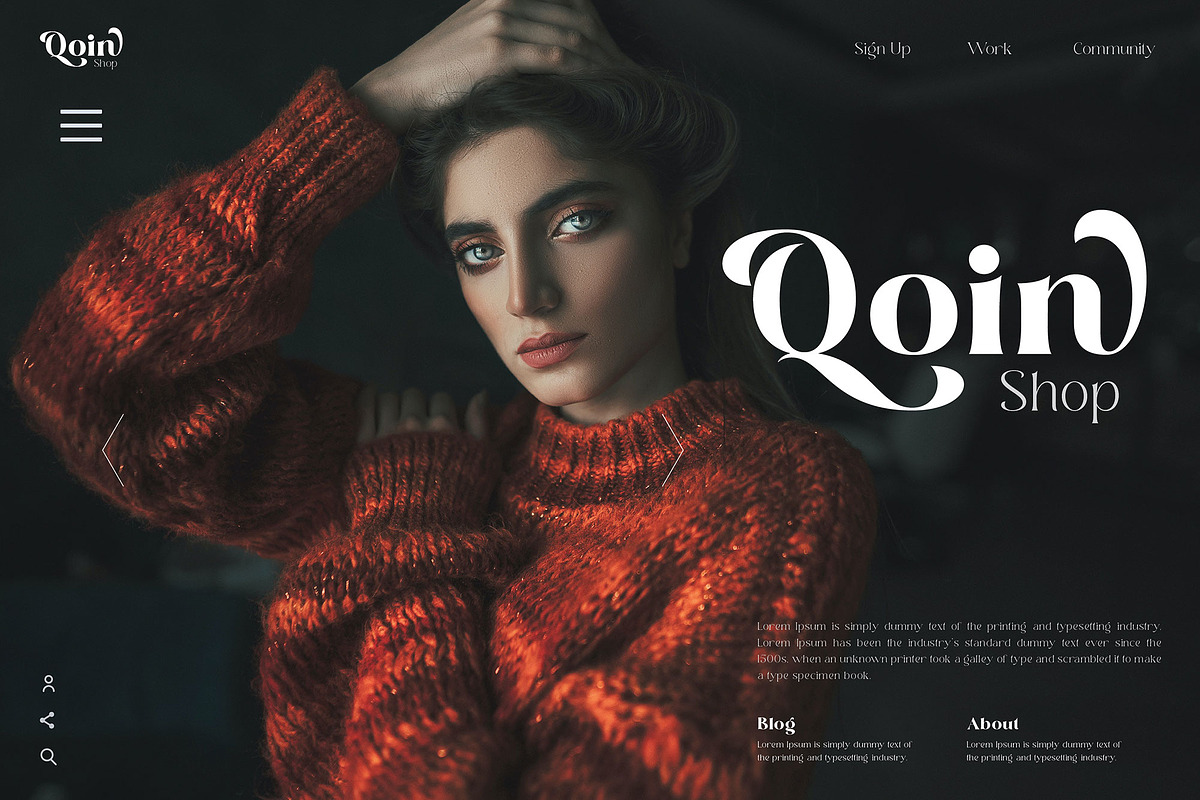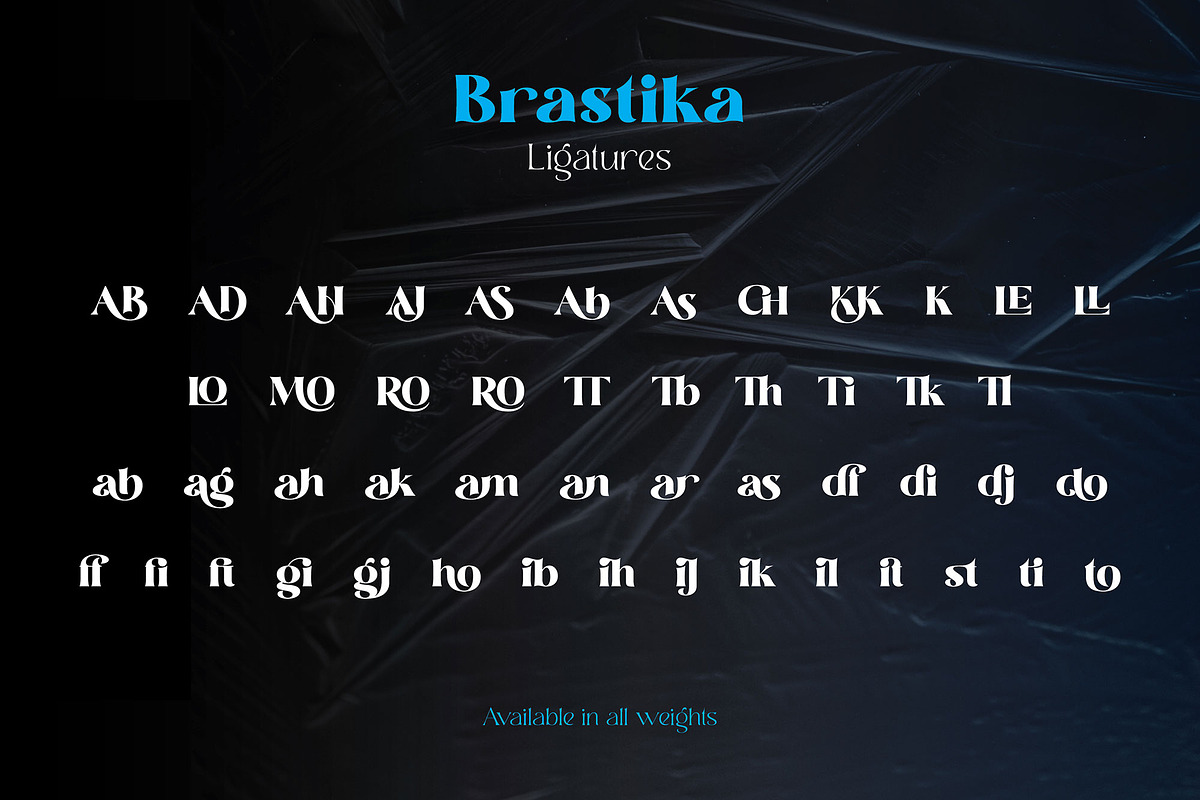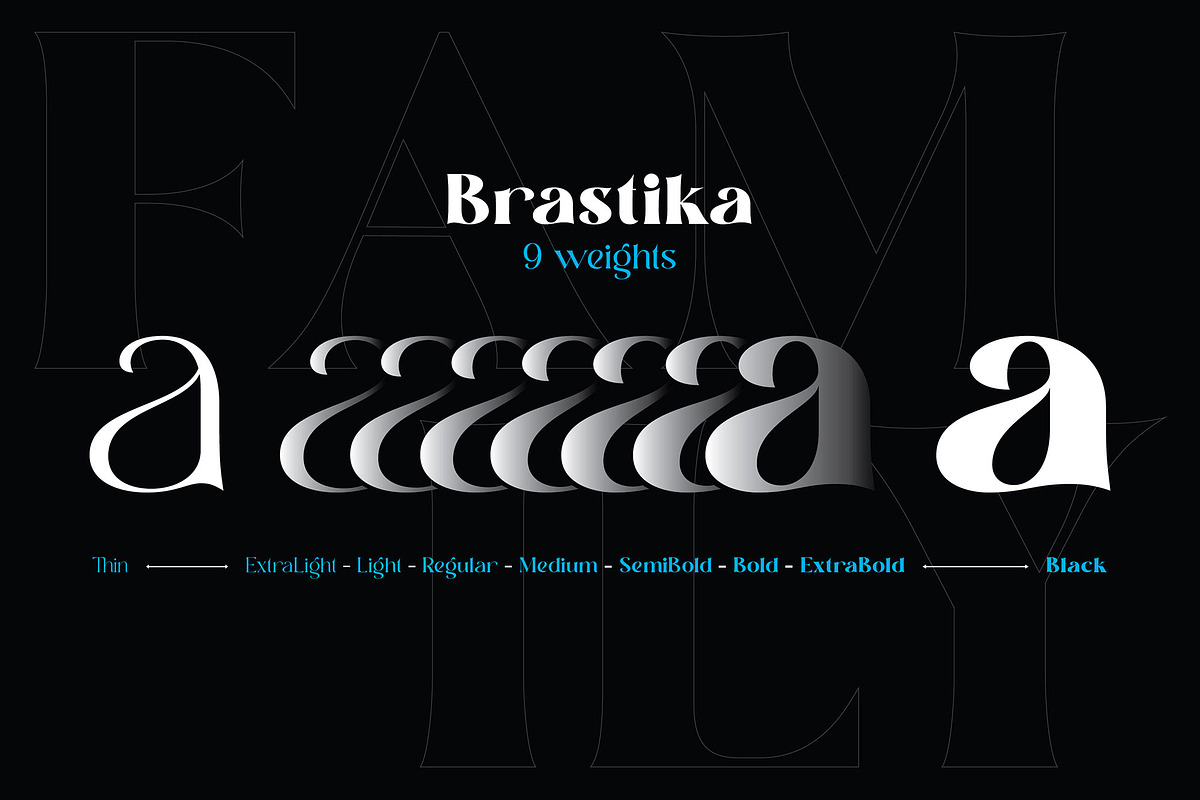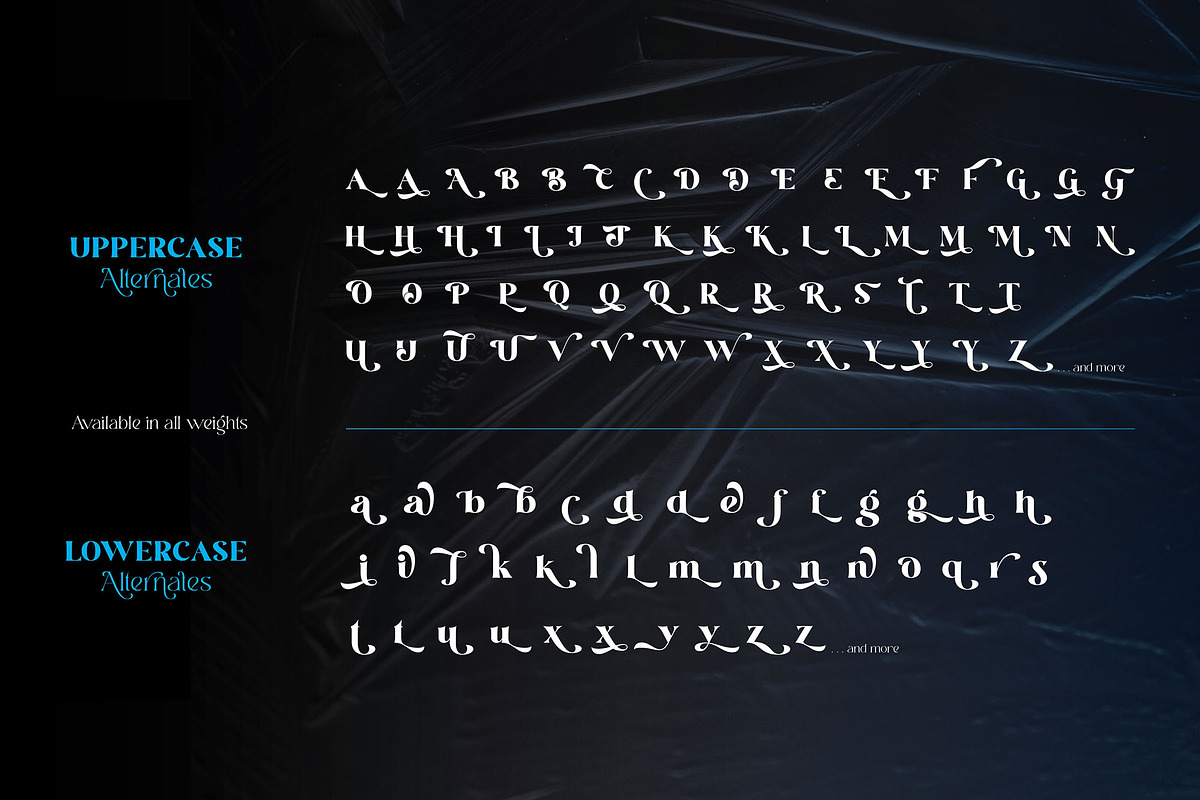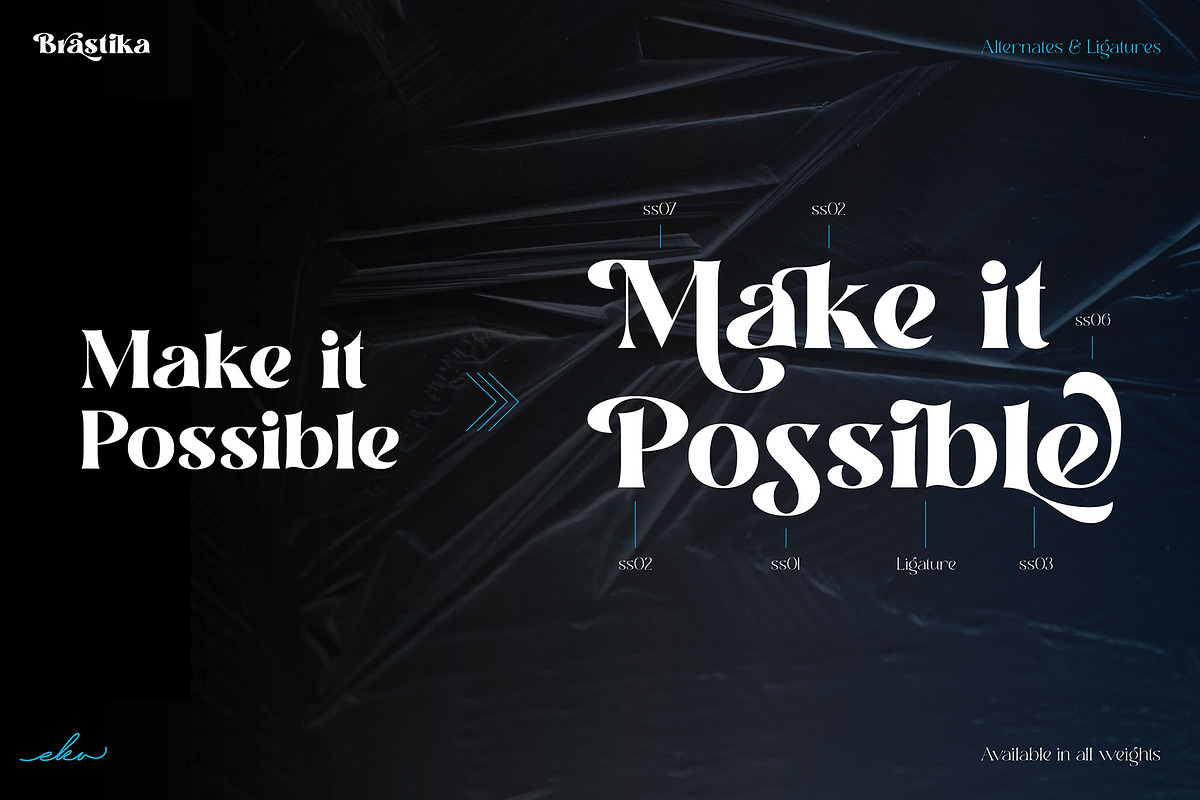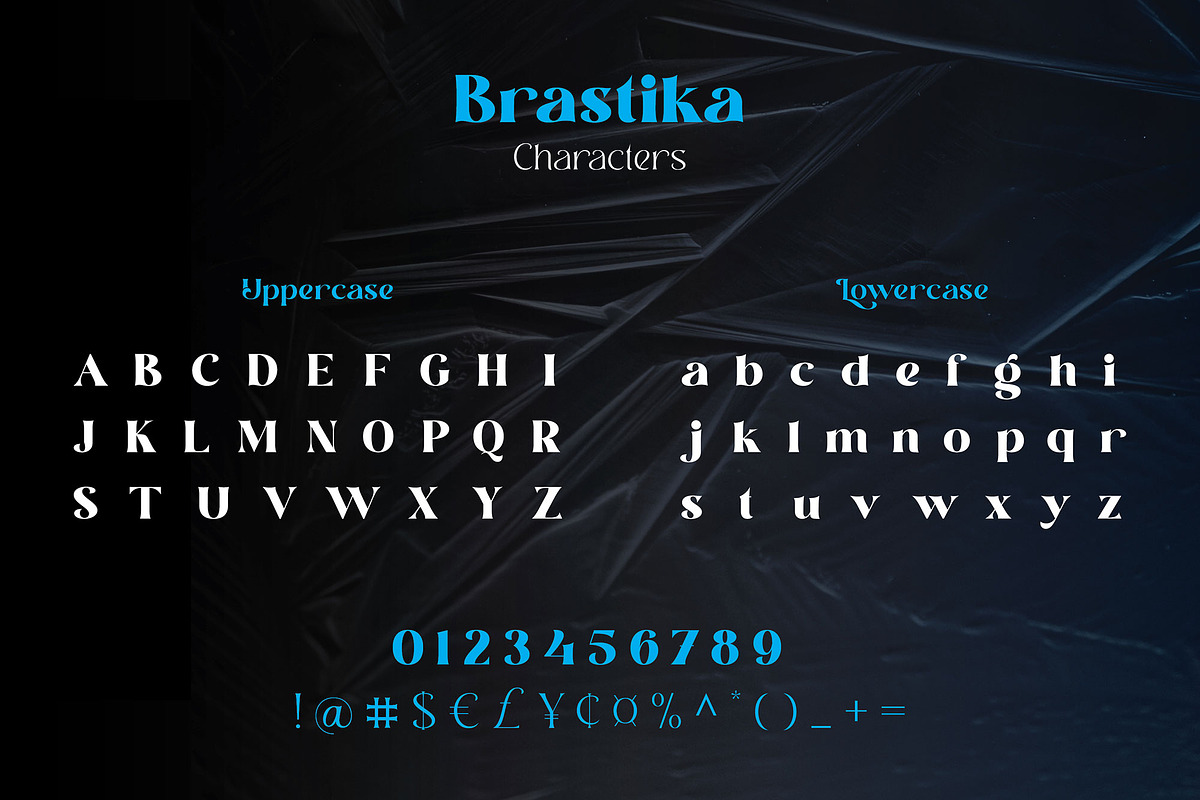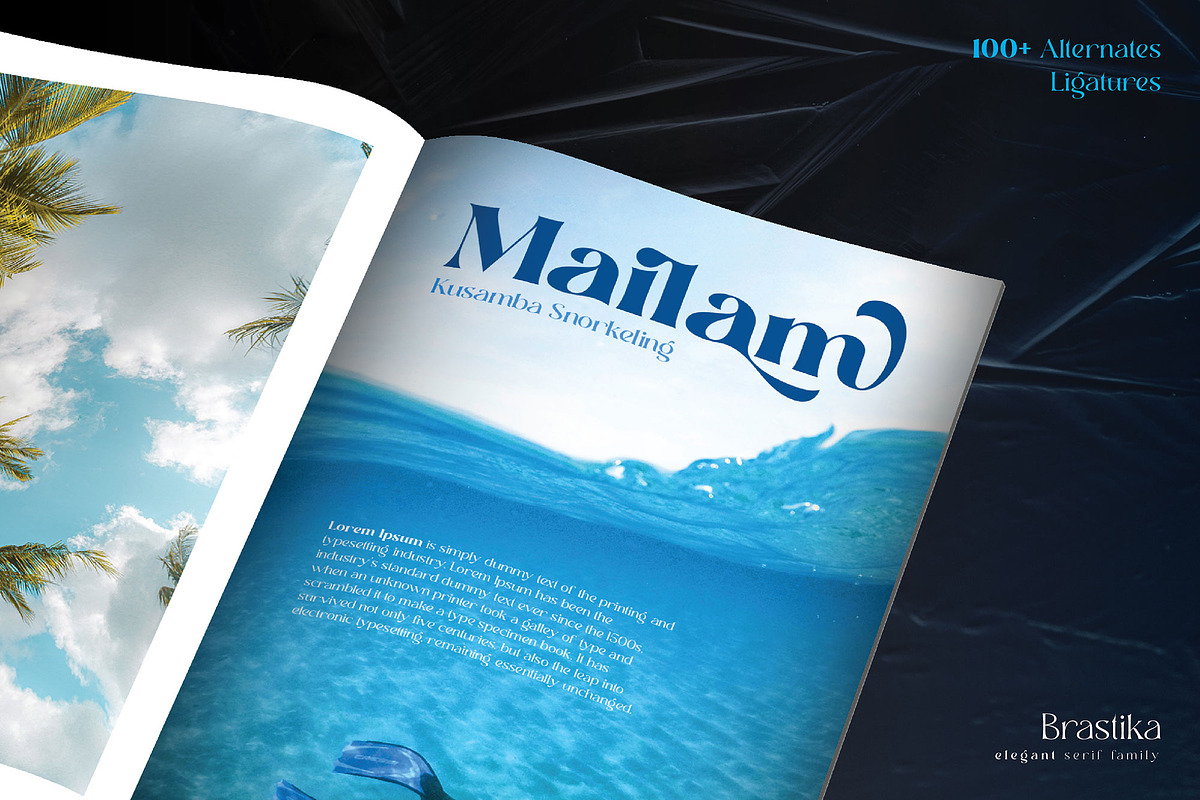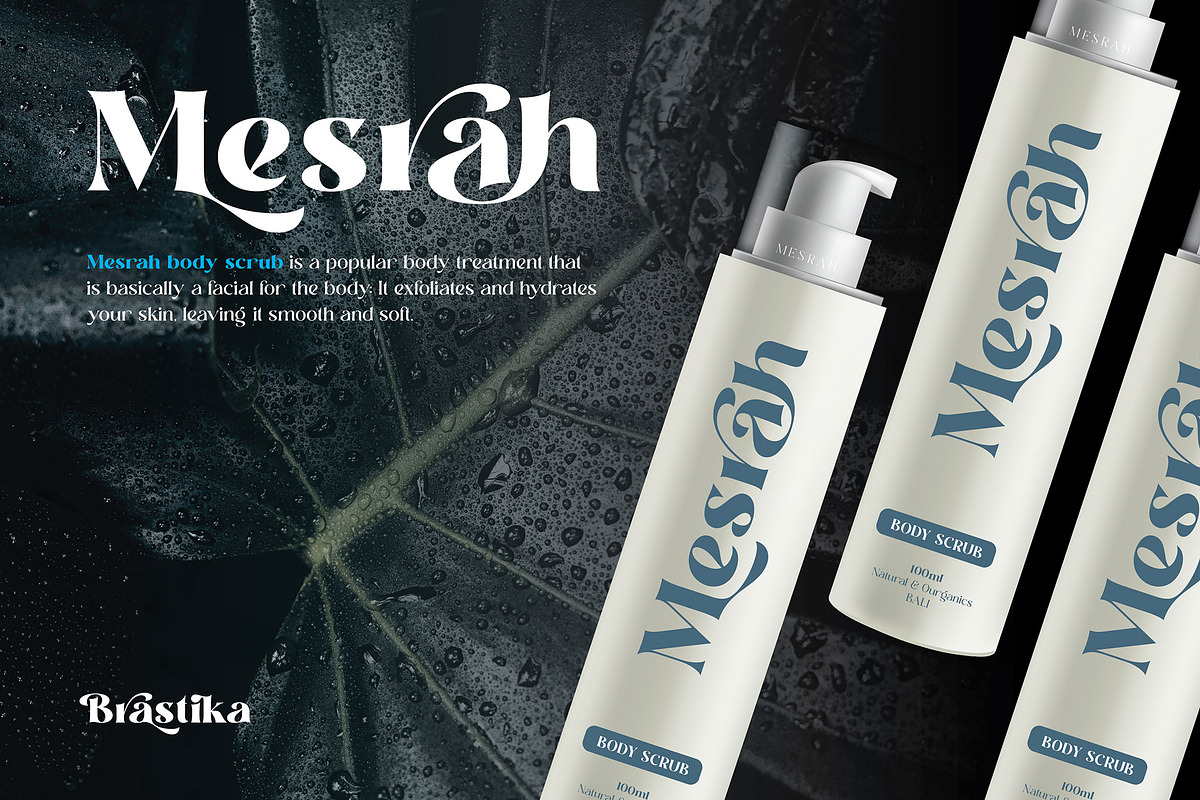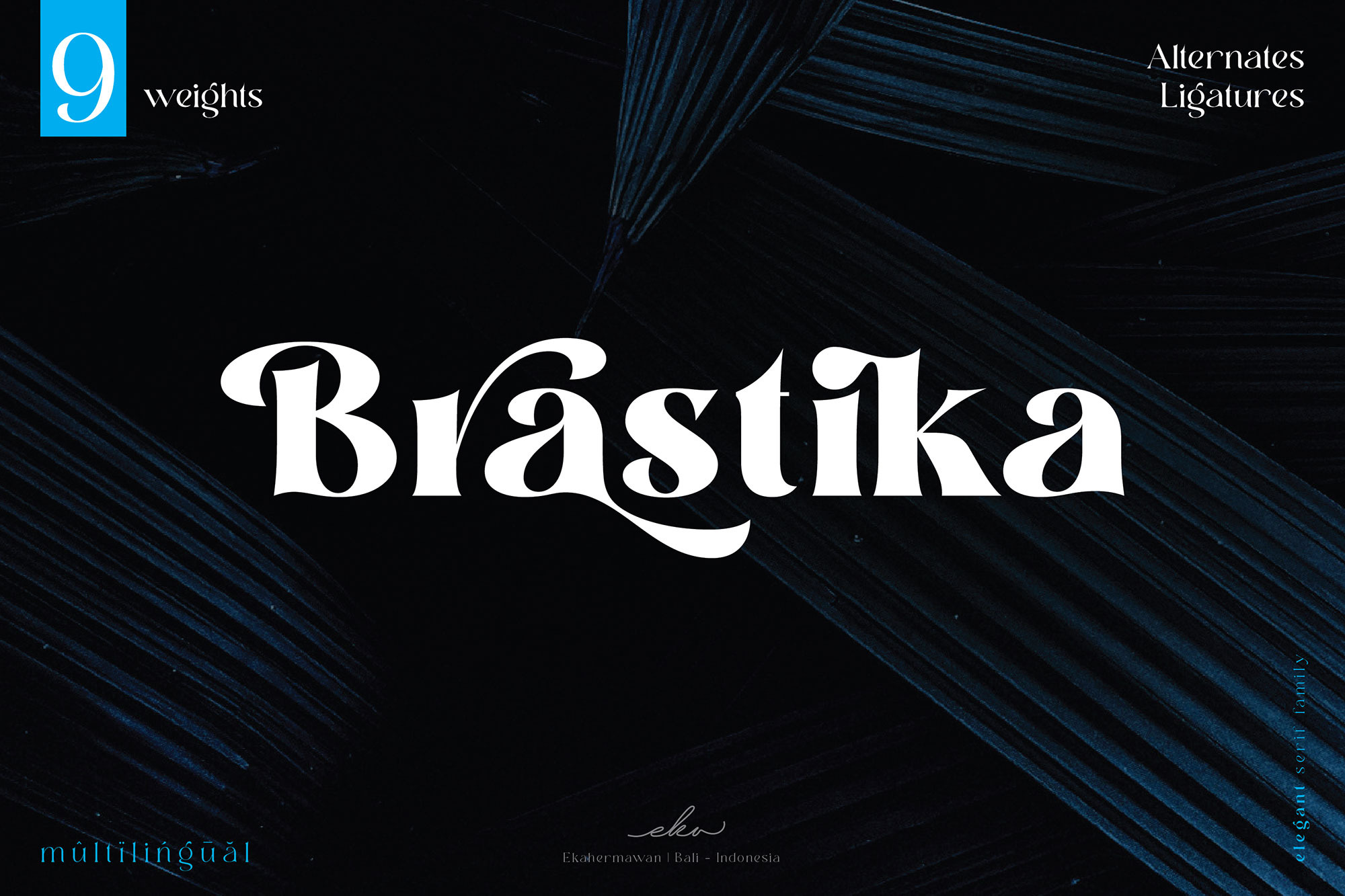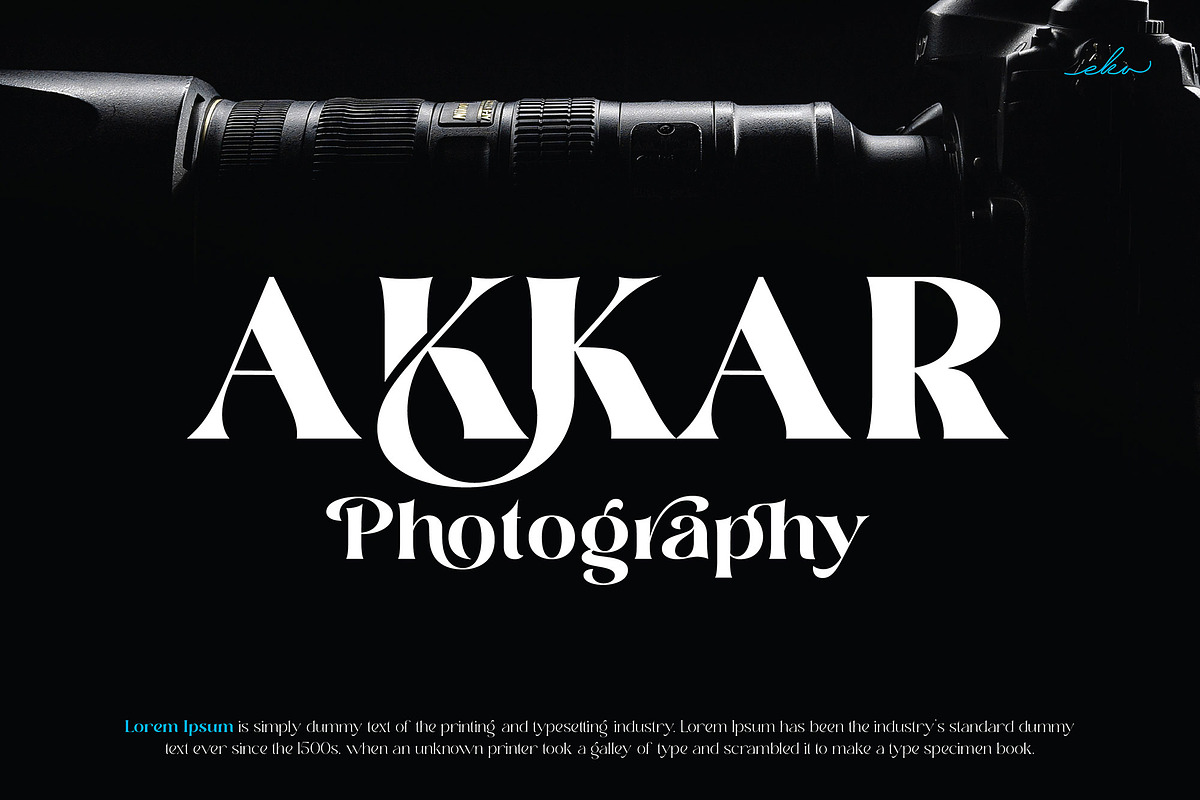
Brastika - Elegant Modern Serif Font
Brastika is an elegant serif family with 9 weights from Thin to Black. Brastika also includes a bunch of alternates characters (PUA Encoded) and ligatures to give you a wide range for create an unique typographic design results. Brastika is suitable font for many different projects such as logo, branding, poster, magazines, labels, merchandise, invitation, presentation, advertising, quotes and so much more!
- OpenType support
- Playfull to use (with ligatures and alternates options)